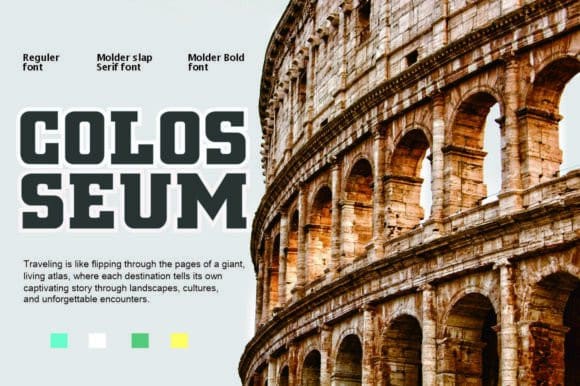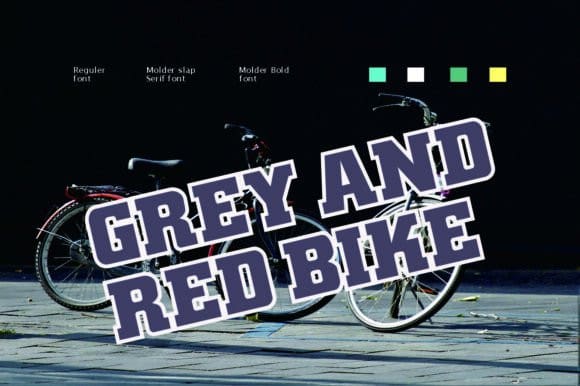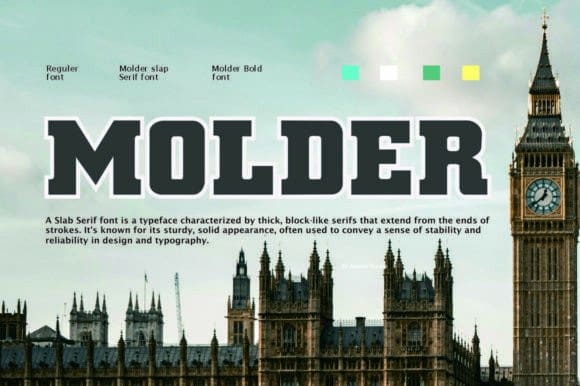
Molder Font
Molder Font: Where strength meets style in a slab serif font that commands attention with its robust yet refined letterforms, making every word a statement of confidence and clarity.